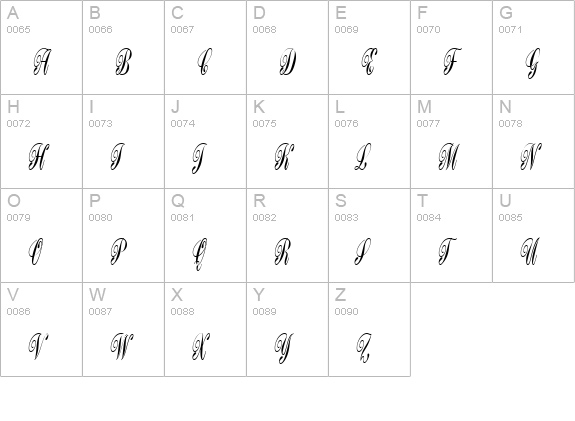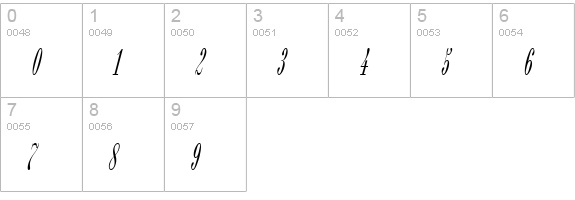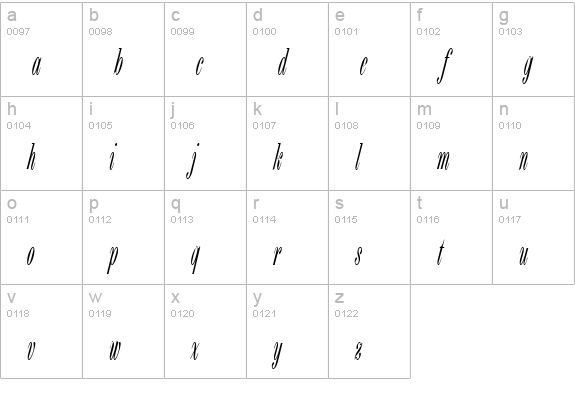
Bordeaux Script Plain font is a stunning and elegant typeface that exudes sophistication and charm. With its fluid lines and graceful curves, this script font is perfect for adding a touch of luxury to any design project. Whether used for invitations, branding, or packaging, Bordeaux Script Plain font will elevate your work to new heights. The best part? Bordeaux Script Plain font is completely free to download at FontsMarket.com. This means you can access this beautiful font without any cost, making it the perfect choice for designers looking to add a touch of class to their projects without breaking the bank. Don't miss out on this incredible opportunity to enhance your designs with Bordeaux Script Plain font - download it today and elevate your creations to a whole new level of sophistication.